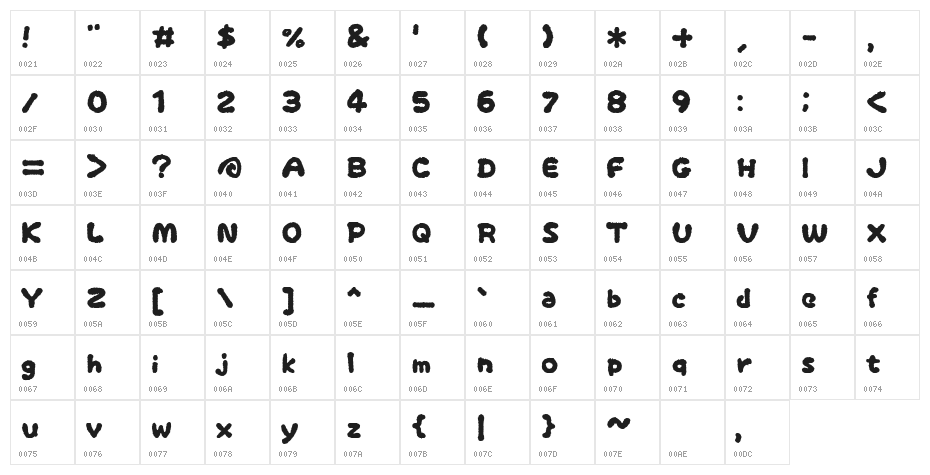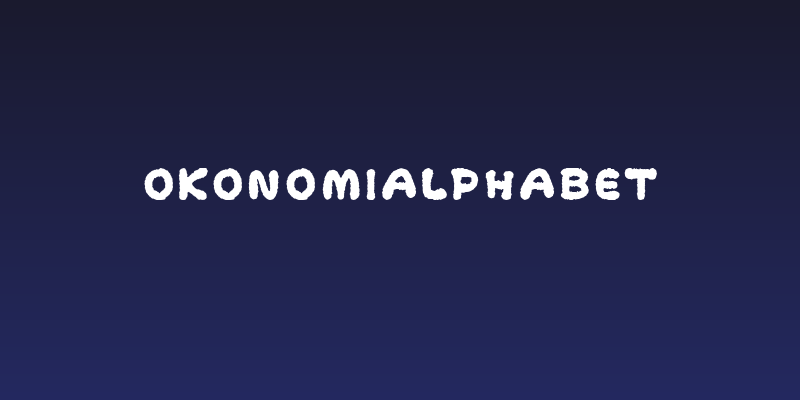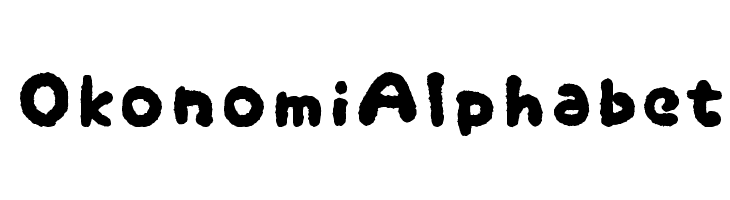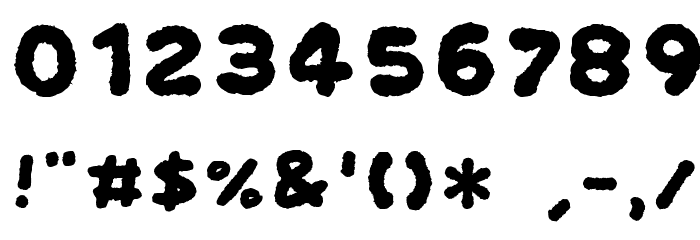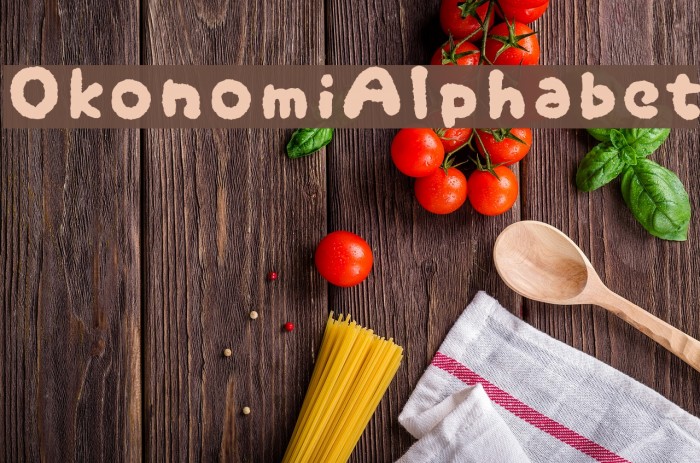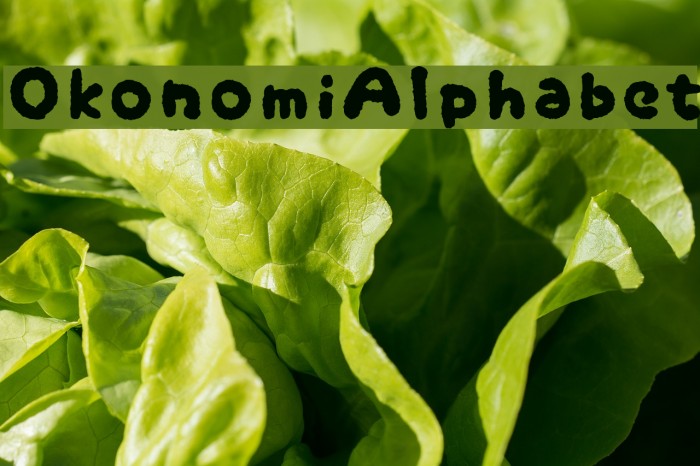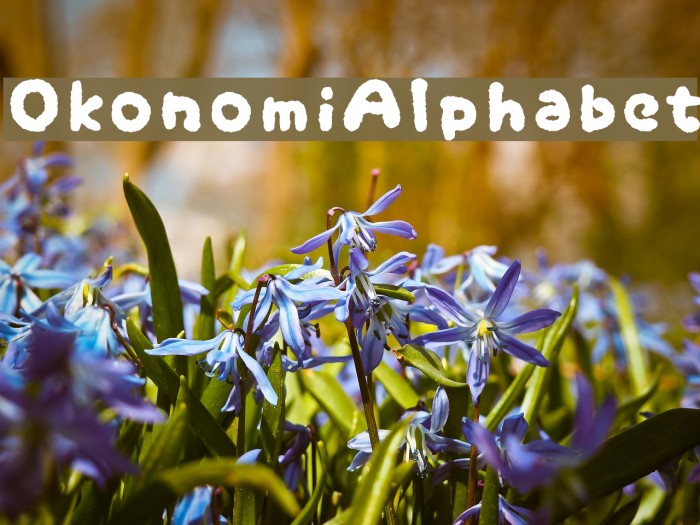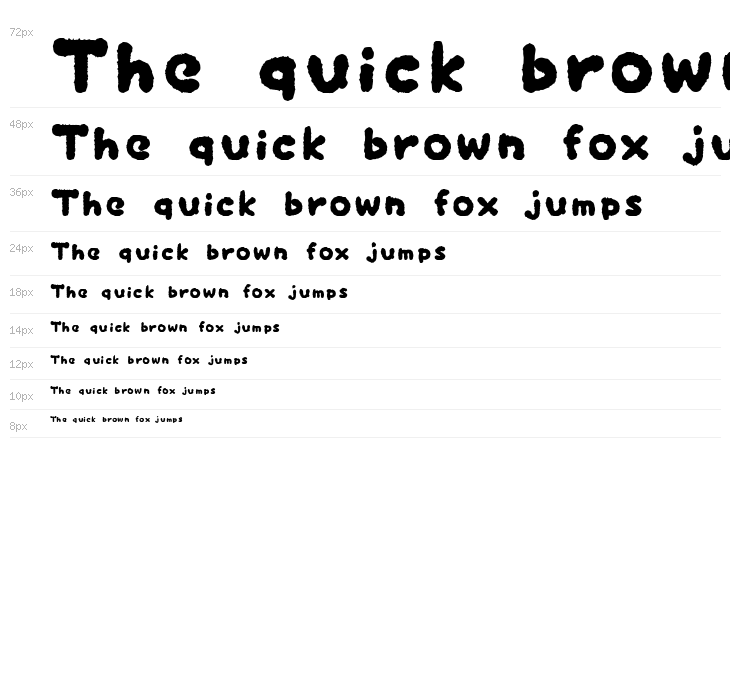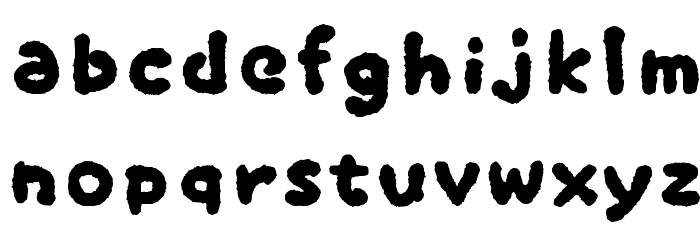
OkonomiAlphabet Font
OkonomiAlphabet Description
This font features a playful and bold design, characterized by its thick, rounded strokes and irregular edges that give it a hand-drawn appearance. The letters are uniformly bold, with a consistent weight throughout, creating a cohesive look. The uppercase and lowercase letters maintain a similar style, with the lowercase being slightly smaller in size. Numbers and special characters follow the same design principles, ensuring a harmonious overall appearance. The font's whimsical style makes it ideal for projects that require a fun and informal touch.
| Overall Style | Playful, Hand-drawn |
| Proposed Projects | Ideal for children's books, playful branding, posters, and creative projects that require a fun and informal touch. |